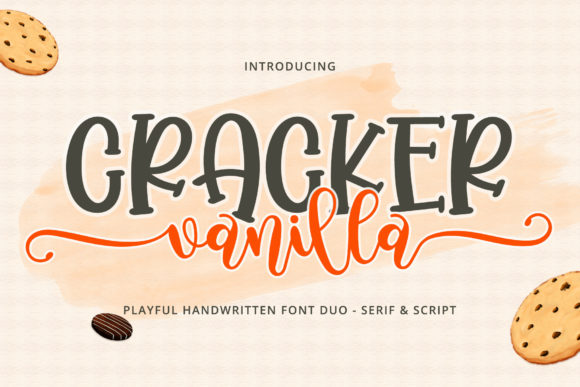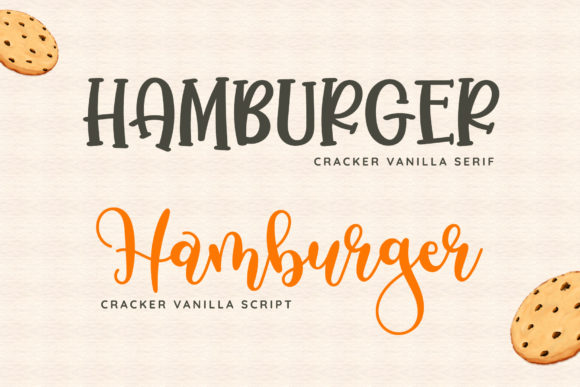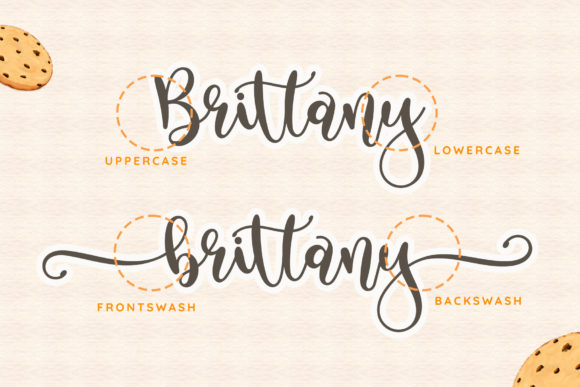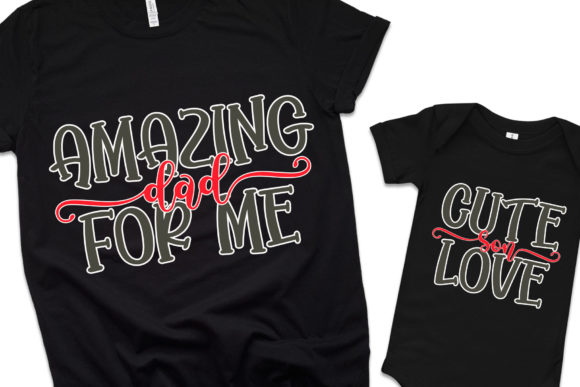
Cracker Vanilla Font: A Playful Handwritten Duo for Cute Branding!
About the Cracker Vanilla Font
Explore the possibilities with Cracker Vanilla Font, a font that offers both beauty and functionality. Cracker Vanilla is playful and fun duo font (serif and handwritten). This font is perfect for any project that requires a bright touch, such as t-shirt mockups, greeting cards, sticker, logo, branding, and others.
Its playful serif and handwritten duo perfectly complements projects needing a lighthearted, friendly feel. Ideal applications include branding for children’s products, bakery logos, wedding invitations, and social media graphics. However, avoid using Cracker Vanilla for large blocks of body text or UI elements; its informal nature compromises readability in these contexts.
Pairing Cracker Vanilla with a clean sans-serif like Open Sans for body copy provides excellent contrast and readability. For a more sophisticated look, consider pairing the serif with a delicate script font like Great Vibes for elegant invitations or packaging. Alternatively, a geometric sans-serif like Montserrat can add a modern edge to the design.
The overall personality is undeniably cheerful and approachable, making it a great choice for brands aiming for a youthful and friendly image. It’s versatile enough for various projects, provided its playful nature aligns with the design’s intended mood.
Cracker Vanilla Font Usage Examples
Cracker Vanilla Font Example